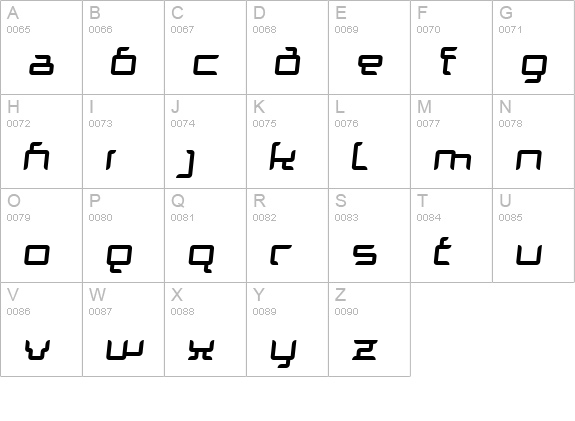
Granolae Regular Italic is the standard, neutral, italic variant in the Granolae typeface family \xE2\x80\x94 well suited to general body text, paragraphs, and standard typographic work.
Granolae Regular Italic font is a stylish and modern typeface that exudes sophistication and elegance. Its sleek and slanted design adds a touch of flair to any project, making it perfect for creating eye-catching headlines, titles, and branding materials. The italicized form of Granolae Regular font gives a dynamic and flowing appearance, adding a sense of movement and energy to your text. What makes Granolae Regular Italic font even more appealing is that it is available for free download at FontsMarket.com. This means you can easily access this versatile typeface without any cost, making it a valuable asset for designers, creatives, and anyone in need of a high-quality font for their projects. Don't miss out on the opportunity to enhance your designs with Granolae Regular Italic font - download it for free today at FontsMarket.com!